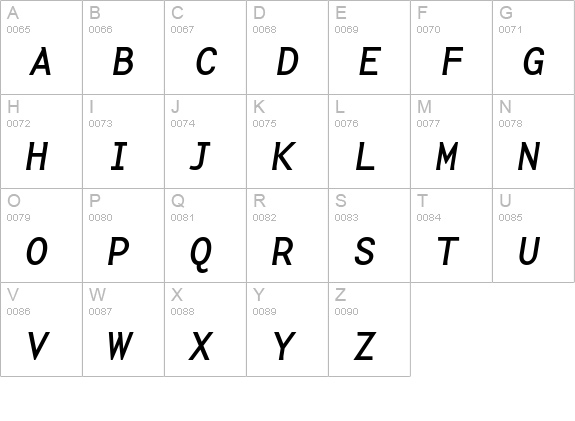
BaseMonoWideRegItalic Italic is a distinctive, italic variant in the BaseMonoWideRegItalic typeface family \xE2\x80\x94 well suited to design and typography projects.
BaseMonoWideRegItalic Italic is a sleek and modern font that combines the classic elegance of italics with a contemporary twist. With its clean lines and balanced proportions, this font exudes sophistication and professionalism. The italicized version adds a touch of flair and dynamism to any design project. Best of all, BaseMonoWideRegItalic Italic is available for free download at FontsMarket.com. This means that you can easily access this high-quality font for your personal or commercial use without any cost. Whether you're working on a website, branding materials, or print designs, BaseMonoWideRegItalic Italic is a versatile and stylish choice that will elevate your projects to the next level.